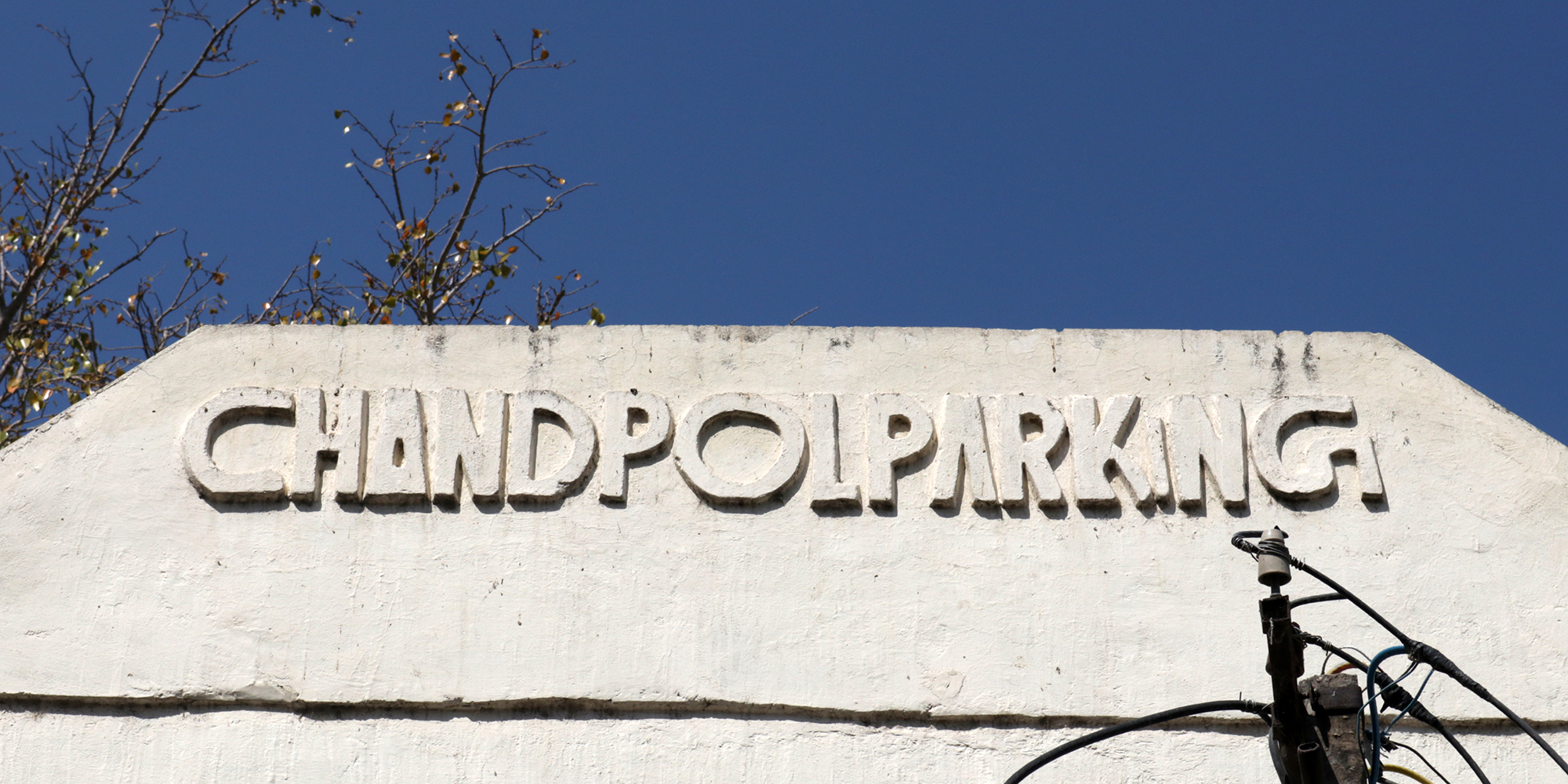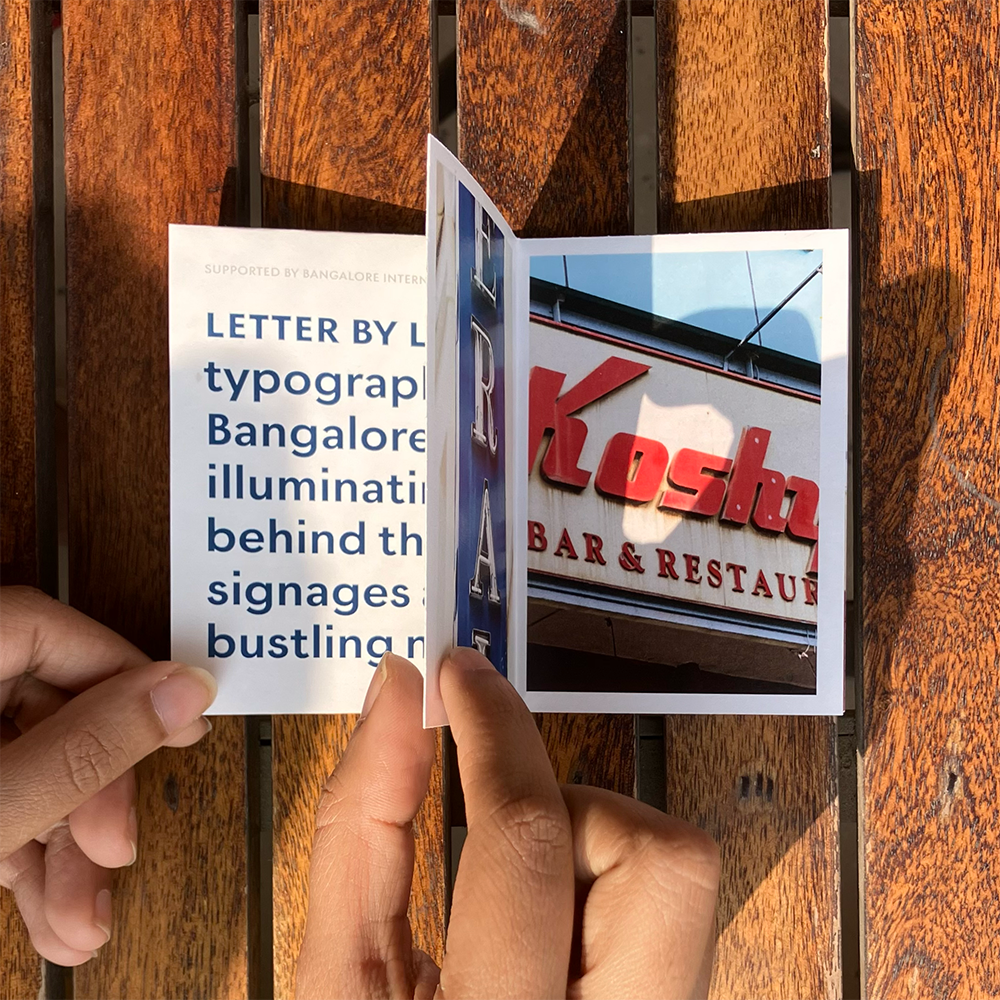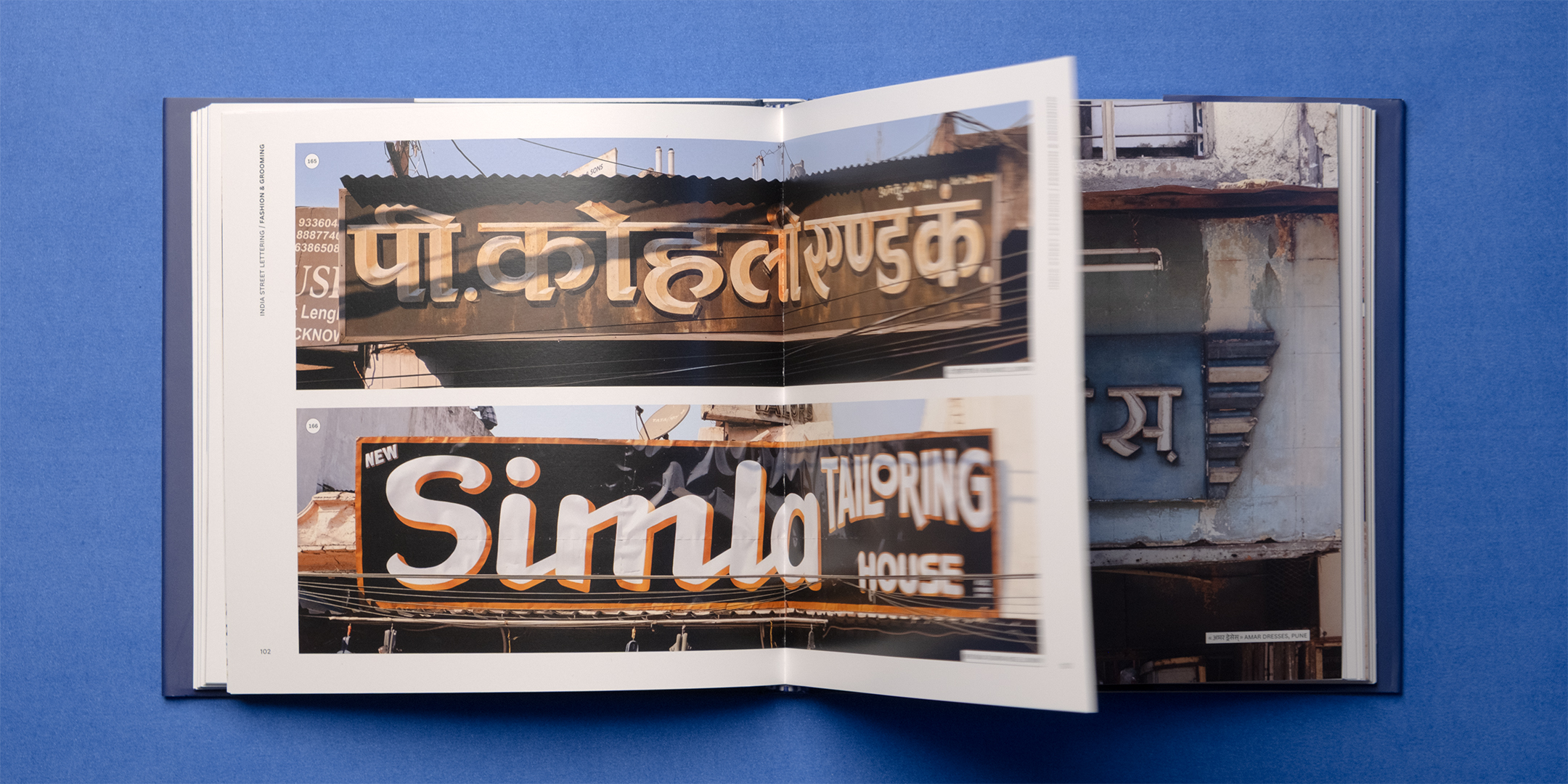
A 200-page hardcover full-colour book showcasing striking public lettering from the country — in paint, in relief, in mosaic, in neon, in wood, you name it.
Pune Ghost Sign: Leisha & Gluco
Uncovering the mystery of what a ghost sign in Pune’s Budhwar Peth once advertised, with some help from colleagues on Mastodon.
Indian Sign Painting — Essay in BLAG
In a new essay on Better Letter Magazine’s blog, Pooja writes about how looking past the clichés about street lettering in India has changed her ways of seeing and learning from sign painting.
In September 2025, Pooja debuted a type walk in Delhi’s Mandi House to complement Instituto Cervantes of New Delhi’s exhibition Tipografía Iberoamericana. The group scrutinised the sans serif signs on the cultural organisations in the neighbourhood, looked closely at tiled lettering on housing and wayfinding, learned more about Indian and foreign scripts on display in this locality, and saw first-hand the work of design greats like Satyajit Ray and Vikas Satwalekar.
Photographs from the collection, as well as the zines based on them, have been the centrepiece of exhibitions that celebrate the typographic culture of Indian cities. The zines have also been featured in exhibitions focused on alternative publishing initiatives.
The archive is the subject of several public lectures and workshops by Pooja: from establishing the place of street lettering in the design canon to using it as the foundation of typeface design and speculative thought experiments.